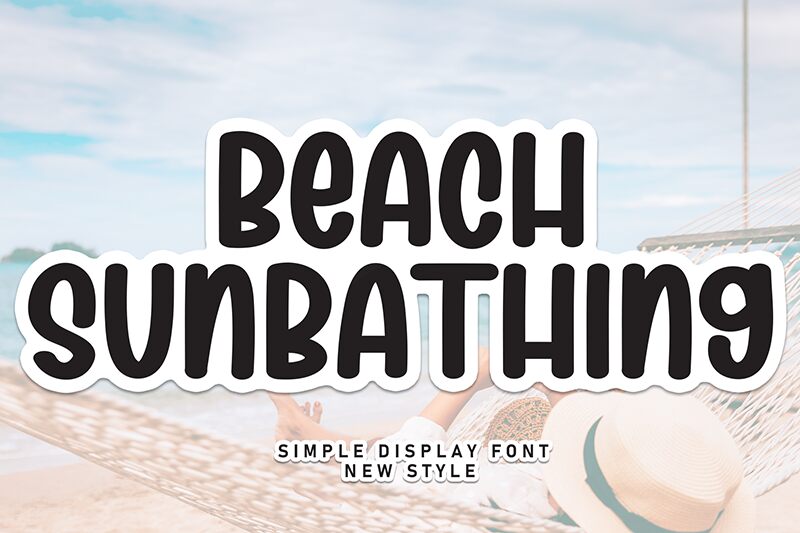
Beach Sunbathing
Beach Sunbathing font by Scratchones is a condensed, handwritten font that radiates a relaxed vibe. The uniform consistency in its bold appearance gives it a unique retro feel that's engaging and versatile. Whether for digital platforms or print media, this free handwritten font can easily adapt to any environment.
Use Beach Sunbathing for crafting headlines, logos, posters, T-shirts, or greeting cards. Include it in branding projects and social media posts, as well as in packaging and merchandise designs. It will also work well on special invitation card designs that require something laid-back and casual like congratulation & birthday cards.